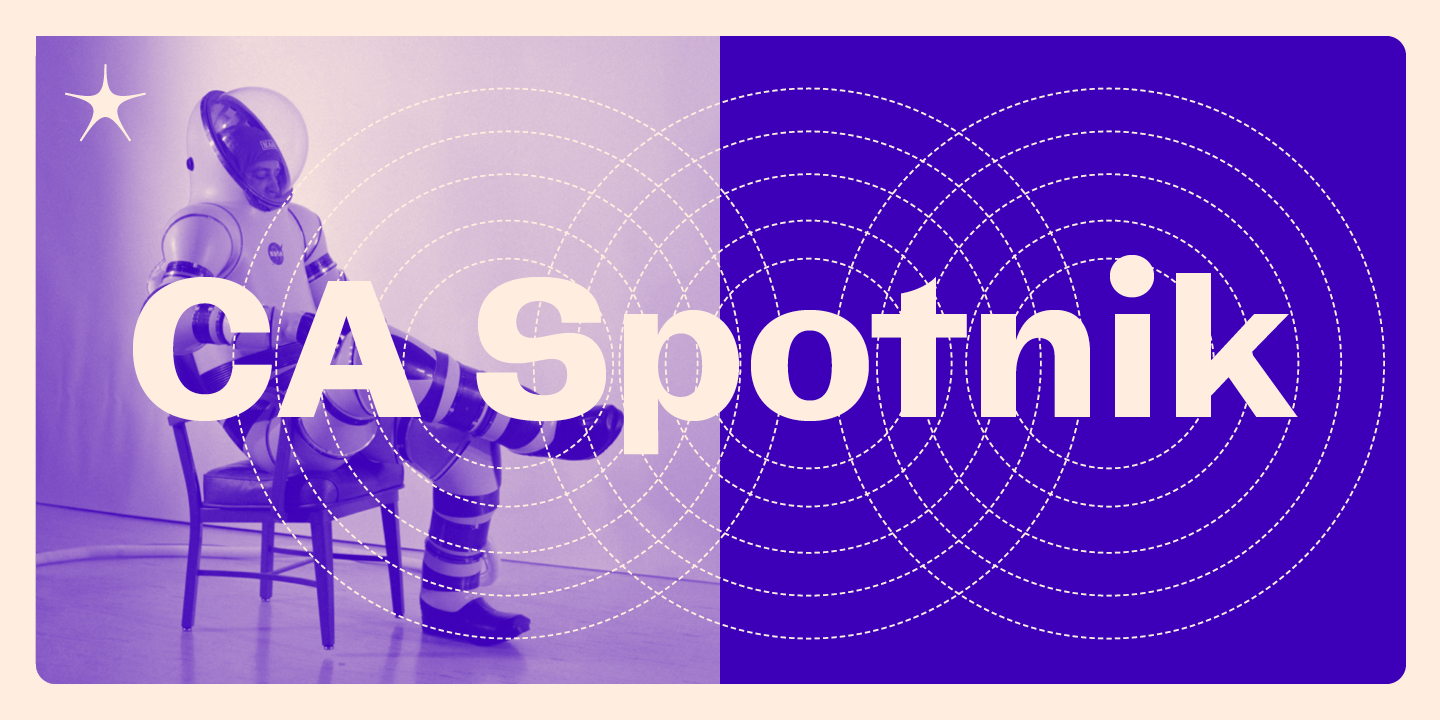
This space-age typeface is perfect for sci-fi movie titles, space exploration agencies, satellite technology companies, astronomy observatories, planetarium displays, rocket manufacturers, space museums, futuristic gaming interfaces, science fiction book covers, cosmic event promotions, space-themed restaurants, and innovative technology startups. The font's cosmic design makes it ideal for projects that explore the mysteries of space and celebrate technological advancement beyond Earth's boundaries.
CA Spotnik Font is exciting because it captures the pioneering spirit of space exploration through its orbital letterforms and satellite-inspired character structure. The font's geometric precision and cosmic proportions create an atmosphere of scientific discovery and interstellar adventure, making it perfect for brands that want to convey innovation, exploration, and limitless possibilities. Its futuristic appearance ensures memorable recognition while maintaining excellent legibility across various space-age applications.
The CA Spotnik Font family includes multiple cosmic variations: Light Orbit, Regular Satellite, Medium Spacecraft, Bold Rocket, and Black Galaxy weights, each available in standard and condensed versions. Special space editions feature technical alternates, astronomical symbols, and cosmic ornaments that enhance the font's scientific appeal, providing designers with comprehensive tools for creating authentic space exploration communications.